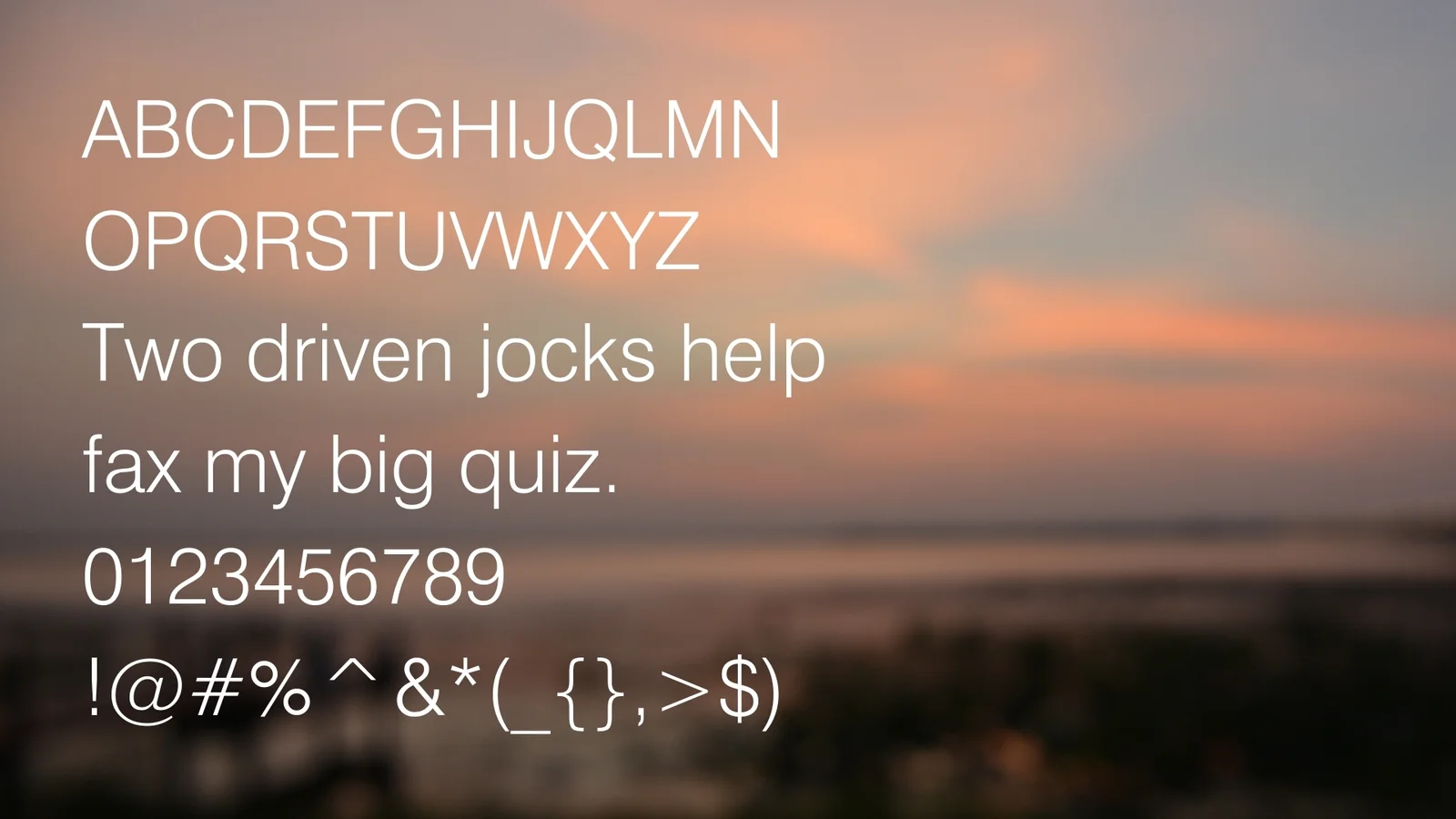
Preview of Swiss Bt Font style variations
Designer
Max Miedinger
About Swiss Bt Font
Swiss BT is a modern sans-serif typeface that draws inspiration from the classic Helvetica design. Known for its clean lines, balanced proportions, and neutral appearance, it is widely used in branding, editorial design, and digital interfaces. Its clarity and legibility make it ideal for both display and body text, while its versatile style adapts well to corporate, creative, and professional projects. Swiss BT preserves the elegance of Swiss typographic tradition, offering designers a reliable and timeless option for various applications.